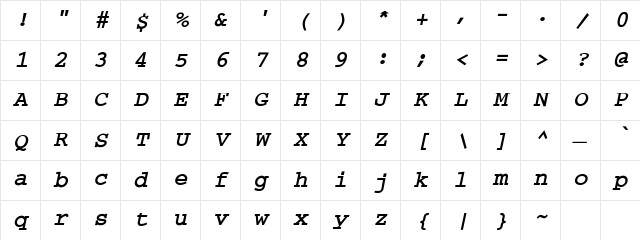
Beach Cliff Bold Regular
Design Context for Beach Cliff Bold
Beach Cliff Bold is a composed and adaptable typeface that performs quietly and consistently across a wide range of design contexts. Its bold stroke weight gives it real presence on the page.
Pro Tip: Use Beach Cliff Bold in both headline and body roles to test its range before committing to a single application.